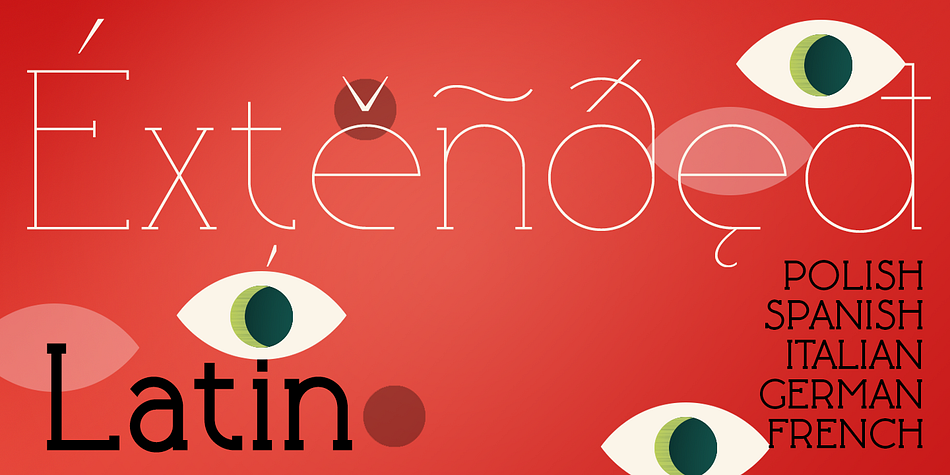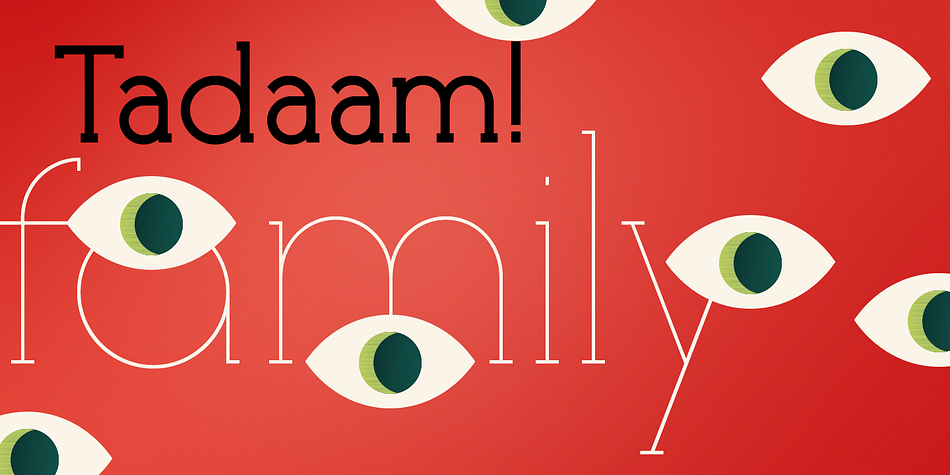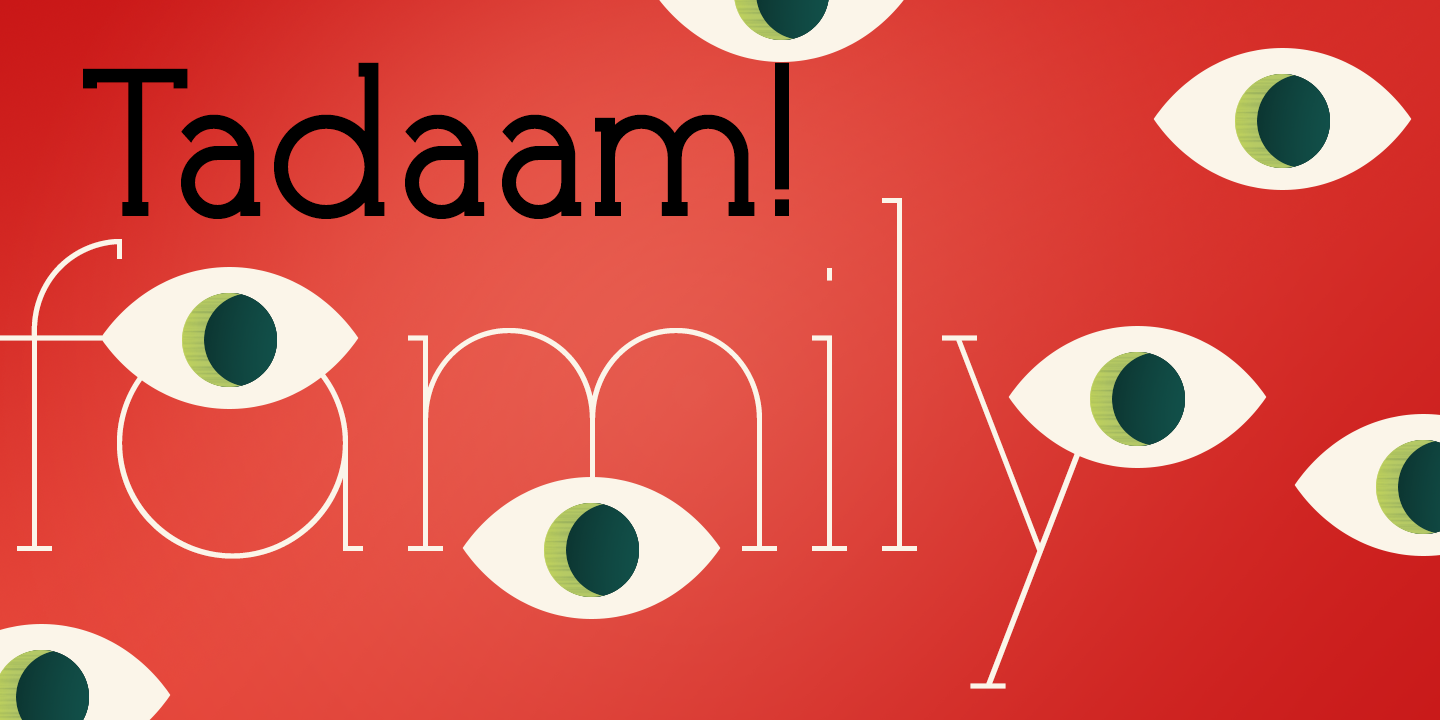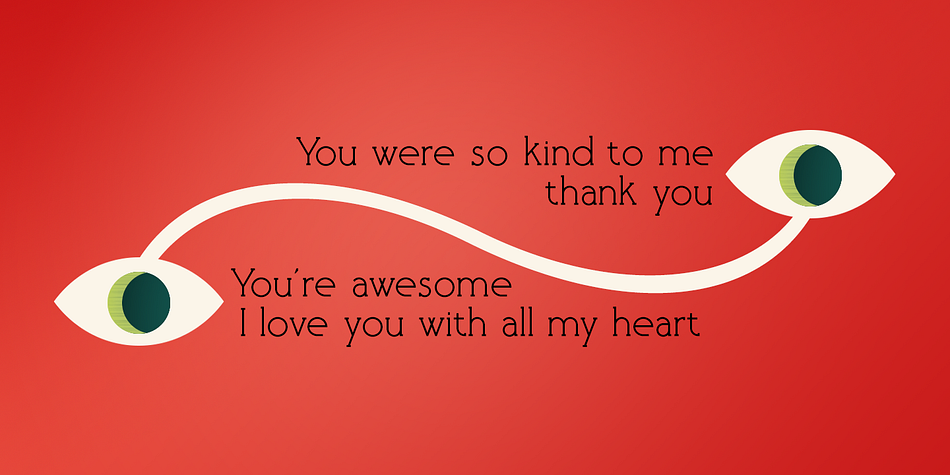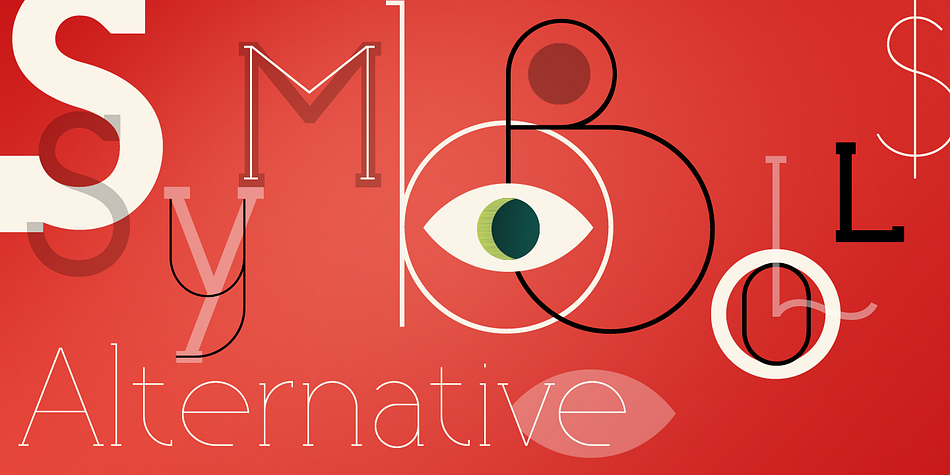
Designed by Alex Etewut, Tadaam is a slab serif font family. This typeface has five styles and was published by Etewut.
Tadaam is a slab serif typeface with 5 font styles from light to heavy.
It has ligatures and alternative symbols for each of 52 basic latin letters.